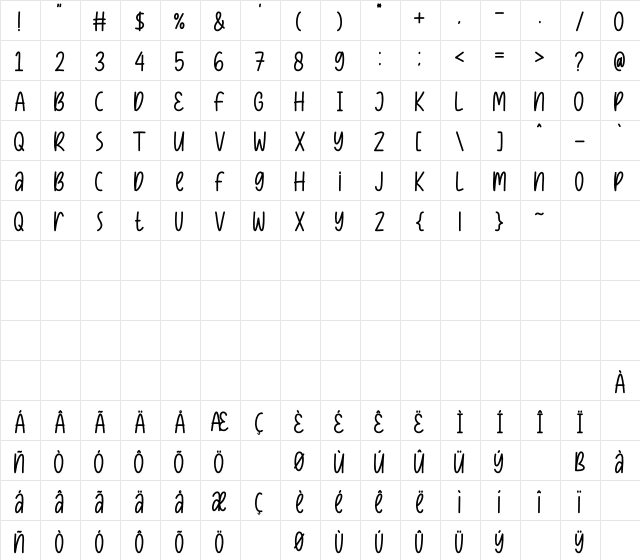
Dessert Sugar Bold Bold
| Designer | Rayvaldo Rizki Pratama Augusta |
Design Context for Dessert Sugar Bold Typeface
Dessert Sugar Bold is a composed and adaptable typeface that performs quietly and consistently across a wide range of design contexts. The heavy weight commands attention and anchors typographic hierarchies.